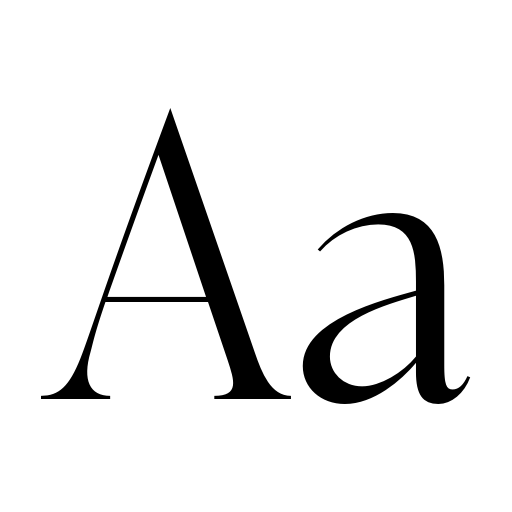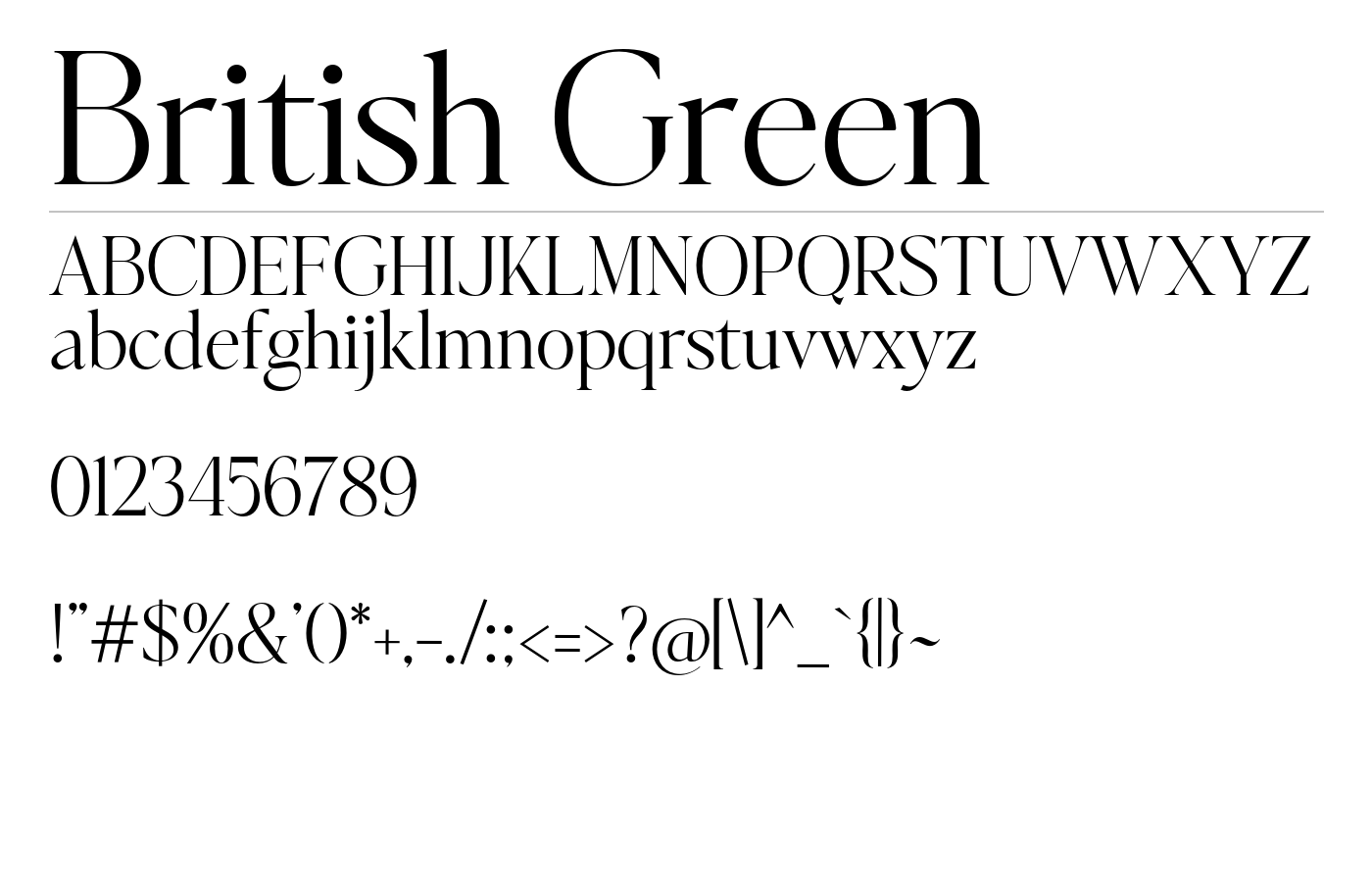
British Green is an elegant serif font with a refined, high-contrast stroke that blends classic sophistication with a modern touch. Its tall, slender letterforms and delicate serifs convey a sense of luxury and style, making it an excellent choice for upscale branding, editorial headlines, and formal invitations where a timeless yet contemporary feel is desired.
British Green Font
About British Green Font
| Font family | British Green Font |
| Designer | Muammar Kadafi |